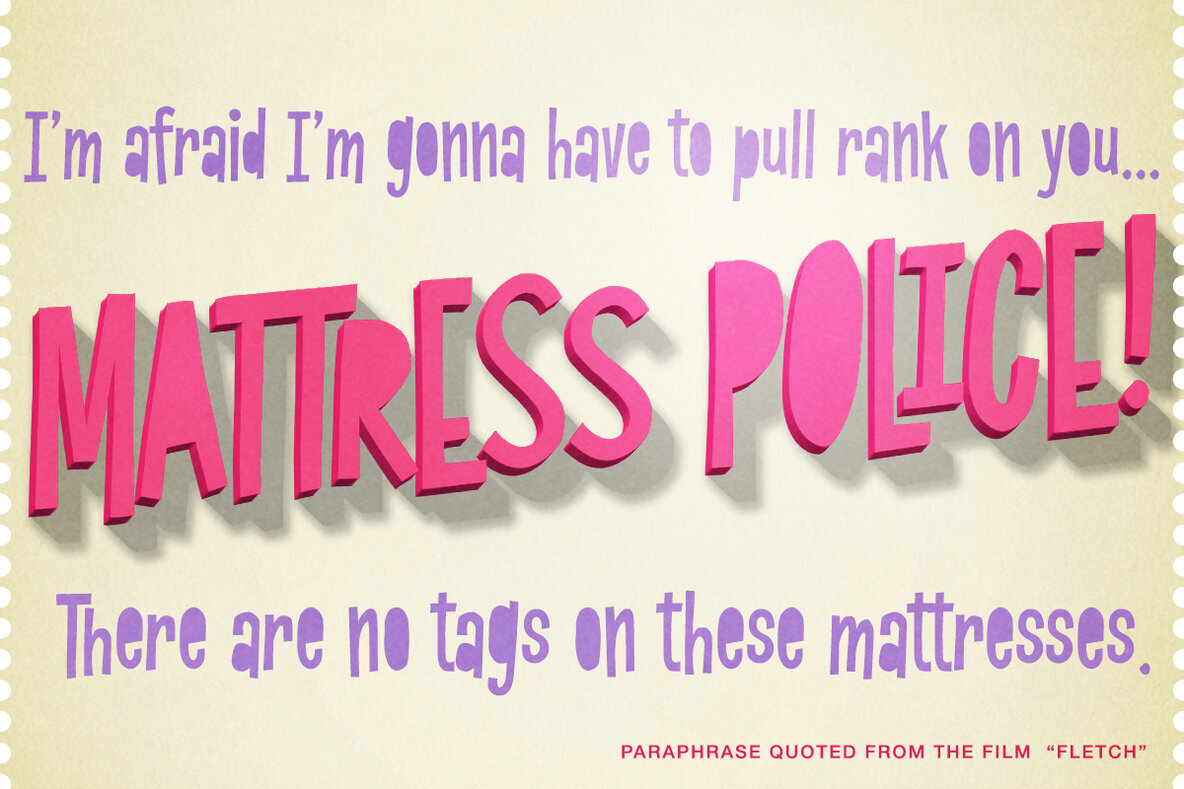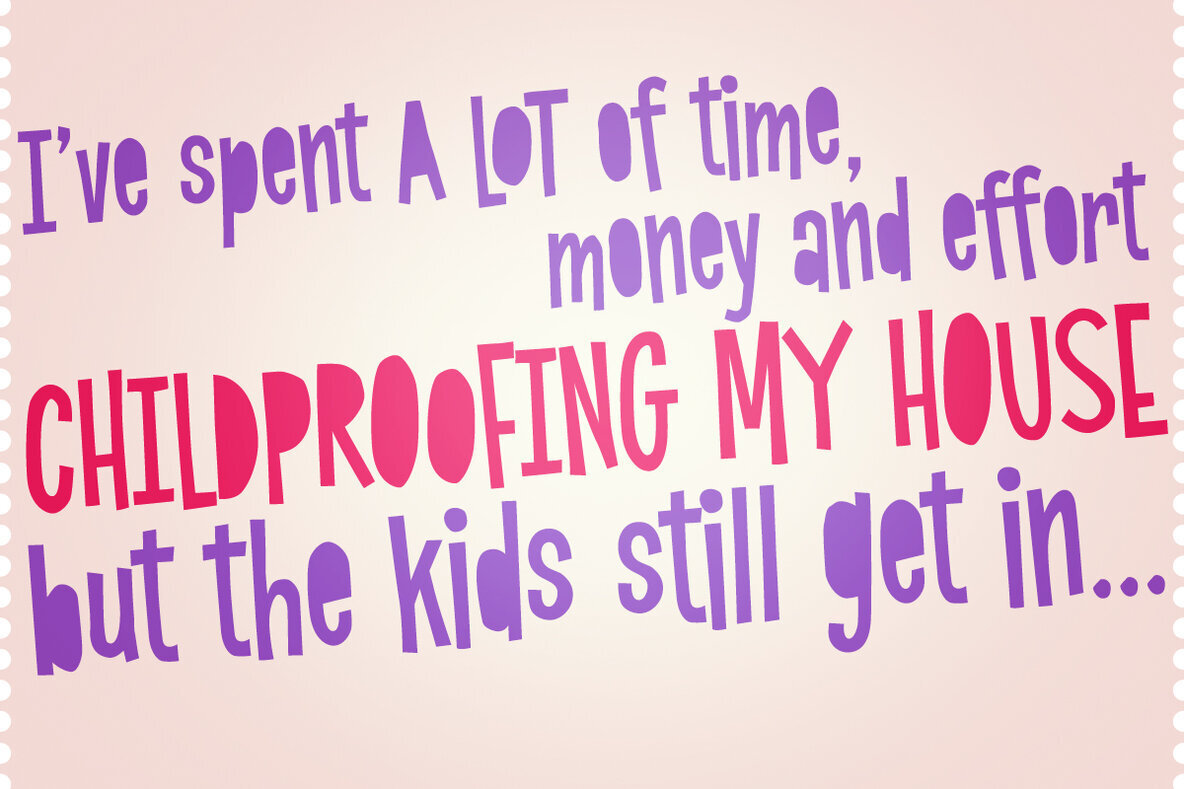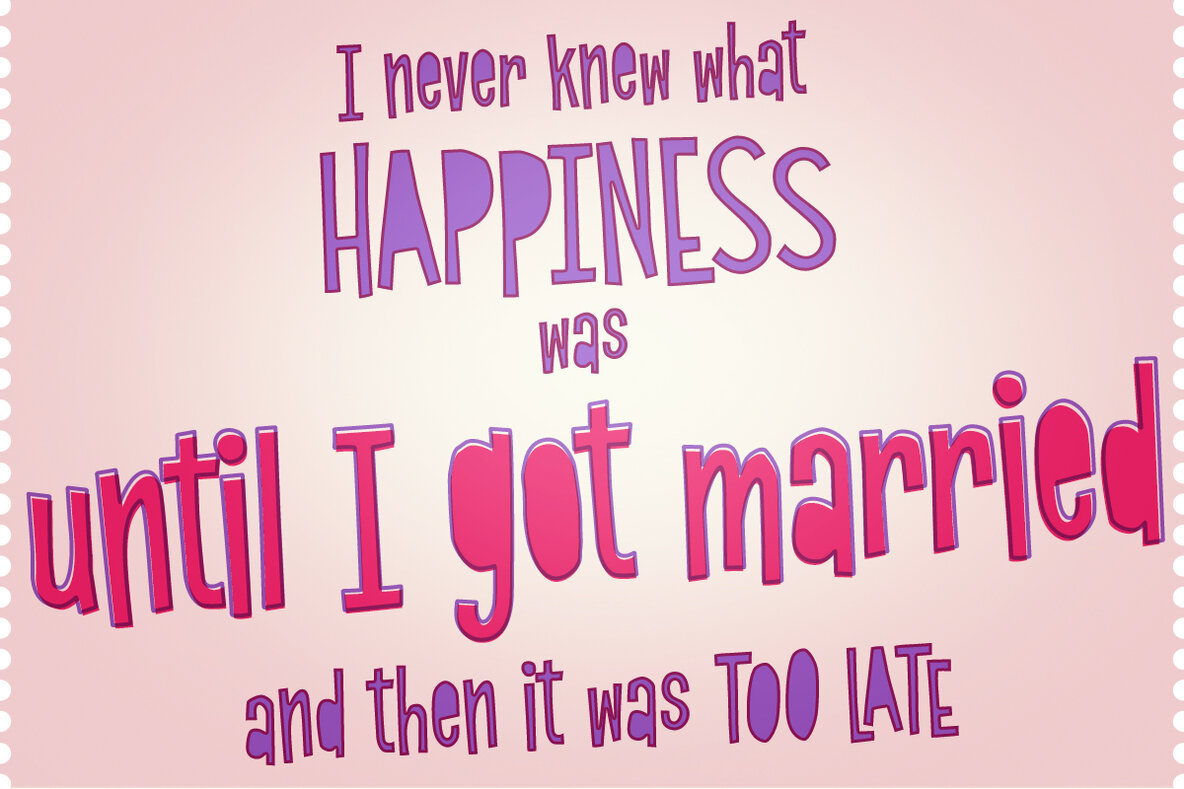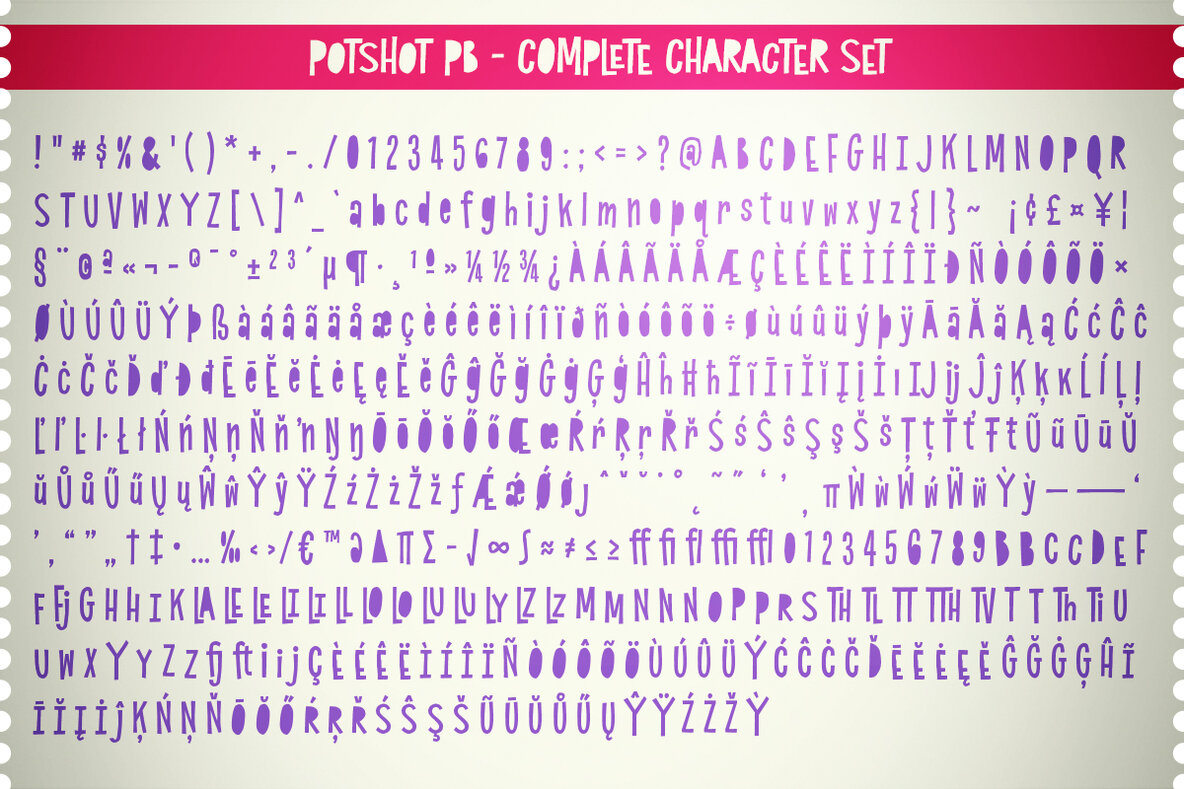
PotShot Font
PotShot PB
Inspired by vintage greeting card lettering, this typeface is a playful and distinct addition to any designer's toolkit. Noteworthy for its lack of counters, PotShot captures attention with its unapologetically quirky design. Its familiar yet unique appearance makes it an intriguing choice for projects requiring a carefree and memorable touch. With its unconventional style, PotShot is ideal for designs needing an artistic flair or a sense of fun.
Enhance your typography with automatic ligature swapping when using all capitals, offering a dynamic and engaging typesetting experience. This feature provides a distinctive touch, adding variety and spontaneity to your designs. PotShot is perfect for those seeking to fill creative projects with a wild, energetic vibe. Its bold, counter-free letters ensure your work stands out in any medium.